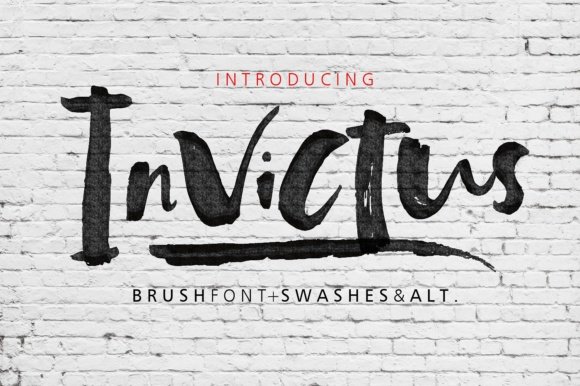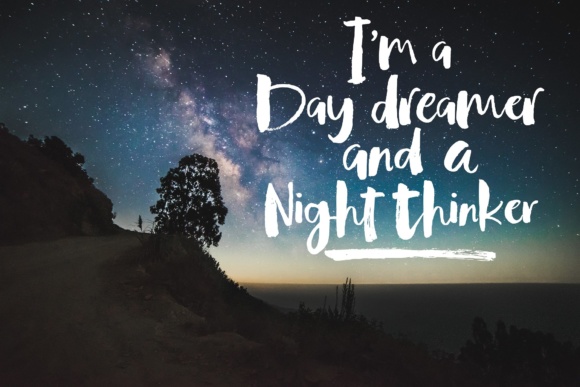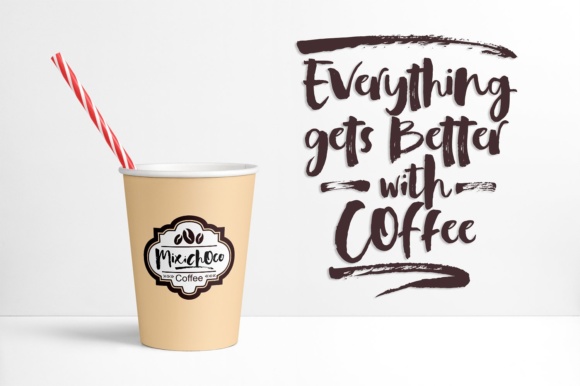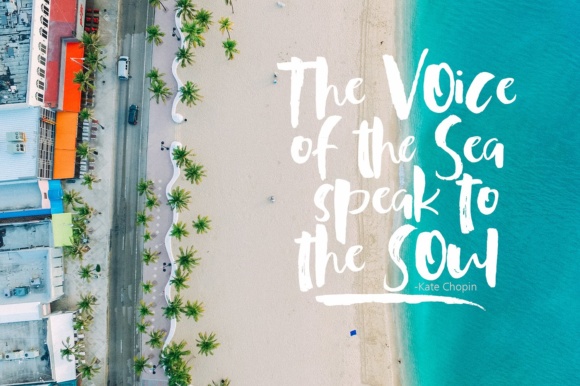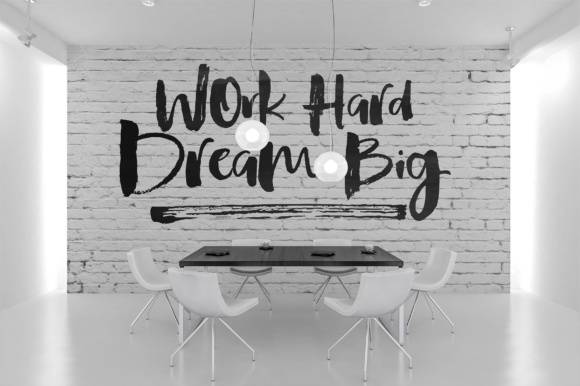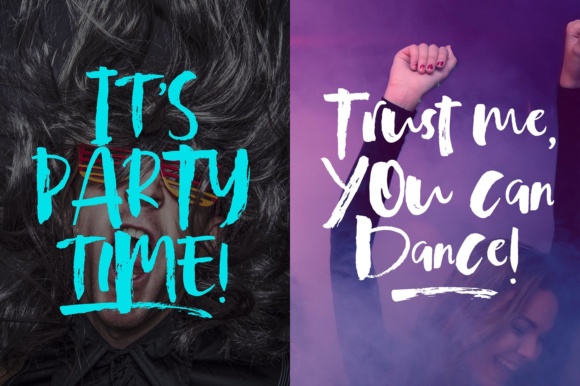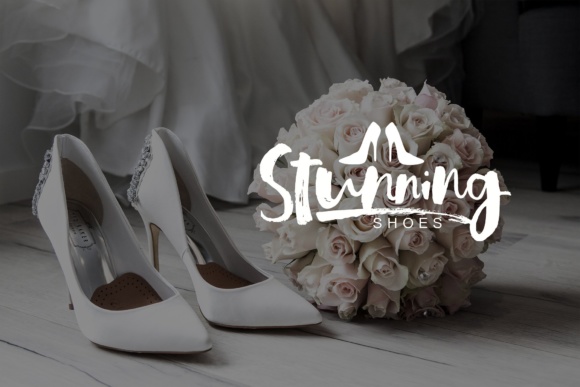
The Quest for the Perfect Handwritten Touch
Have you ever been working on a project and you just can’t seem to find the perfect font to convey the emotion you’re trying to express? The blank page stares back at you, taunting you with its emptiness, until suddenly, a spark of creativity strikes and you stumble upon a font that perfectly captures the essence of your vision. For designers, this moment of triumph is what makes all the hard work worth it.
| 📌 Product Name | Invictus Font |
| 👤 Author | fargunstudio |
That’s where the Invictus Font comes in – a beautiful, hand-painted brush font that brings a touch of elegance and sophistication to any project. With four hand-painted character sets and swashes that can be mixed and matched to create unique and personalized designs, the Invictus Font is the perfect tool for designers looking to add a handmade feel to their work.
Invictus Font Key Features
- Unique Characteristics: Invictus Font features a unique blend of modern and classic elements, making it suitable for a wide range of design projects, from corporate to creative.
Invictus Font Review
Overall, I’m quite impressed with the Invictus Font. Here’s what I like about it:
- ✨ Elegant and modern design that looks great on both digital and print materials
- ✨ Excellent legibility, making it suitable for body text and headings alike
- ✨ A wide range of weights and styles, giving designers plenty of creative freedom
However, I do have a few concerns:
- ⚠️ Some of the thinner weights may not be suitable for small text sizes, as they can appear too delicate
- ⚠️ The font may not be as versatile for certain cultural or language-specific designs, due to its more Western-oriented aesthetic
- ⚠️ While the font is well-suited for digital applications, it may require some adjustments for print materials, particularly at smaller sizes
Despite these limitations, I think Invictus Font is a solid choice for designers looking for a clean and sophisticated typeface. With a little creative experimentation, I’m confident that designers can push the font to its full potential and create some truly stunning designs.
Tips for Getting the Most Out of Invictus Font
Invictus font is a highly versatile font that can be used for a variety of purposes. Here are some tips for getting the most out of it:
- Use Invictus font for headings and titles to add a touch of elegance and sophistication.
- Experiment with different font sizes and styles to create a unique and eye-catching look.
- Combine Invictus font with other fonts to create a visually appealing and harmonious design.
Great Vibes Font is a modern, elegant script font perfect for creating a sophisticated and refined look. It is ideal for use in logos, branding materials, and advertising. Great Vibes Font is more elegant and refined compared to Invictus Font, which has a more rugged and distressed look.
Pacifico Font is a beautiful, elegant script font with a relaxed and casual feel. It is suitable for use in headings, titles, and body text, especially in digital and web design. Pacifico Font is more laid-back and casual compared to Invictus Font, which has a more aggressive and bold look.